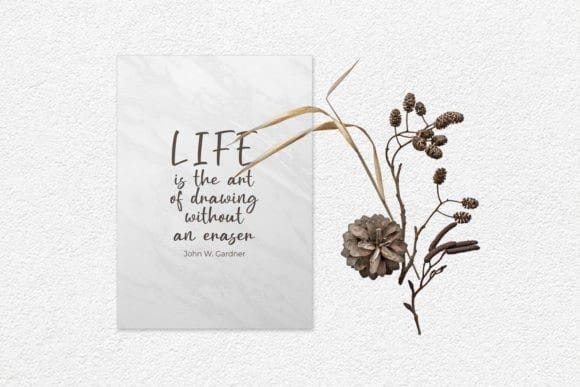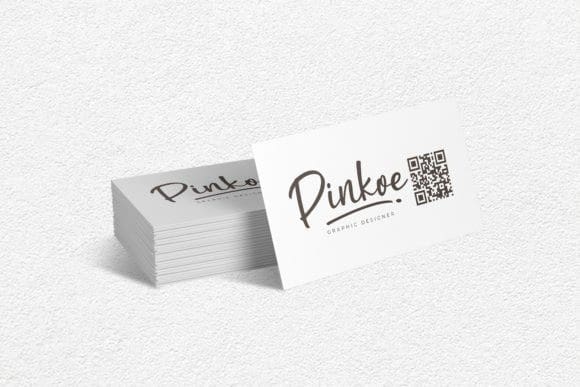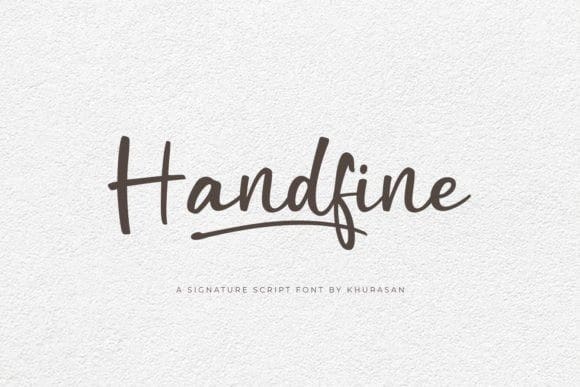
Handfine Script Font
Handfine Script Font, is a clean, stylish, modern, and elegant script font perfect for posters, logos, magazines, book covers, banners, and many more! Get this amazing font, and use it to create lovely designs. It can easily be matched to an incredibly large set of projects, so add it to your creative ideas and notice how it makes them stand out!